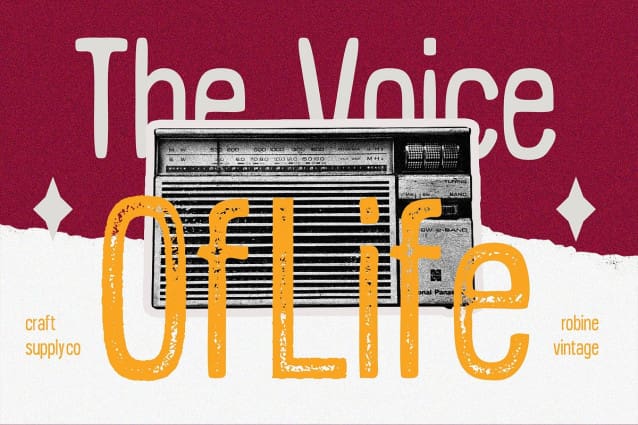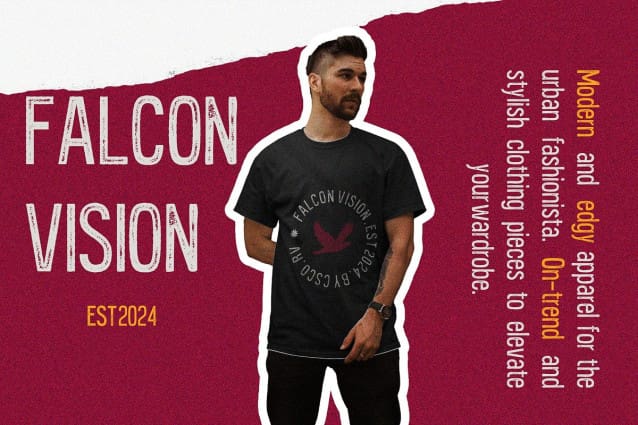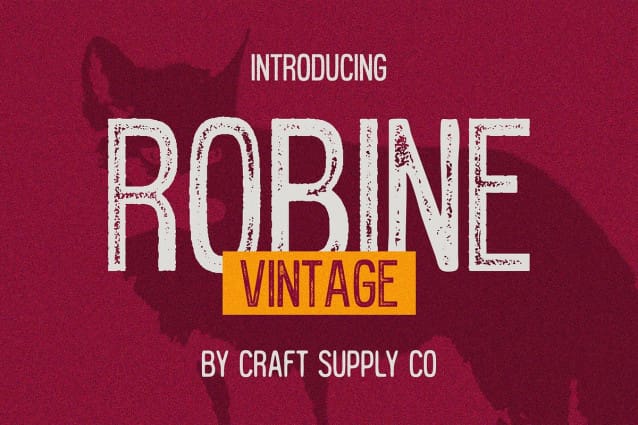
Robine Vintage Font
Robine Vintage Font: Embracing Vintage Vibes. Vintage-Inspired Sans Serif Robine Vintage presents a sans serif display font exuding vintage charm. Its classic yet contemporary design captures the essence of retro aesthetics with a modern twist.
Low Contrast, High Impact With its low-contrast strokes, This font delivers a bold visual impact suitable for various display purposes. Each character is meticulously crafted to command attention without overwhelming.
Rough Stamp Drawn Effect Infused with a rough stamp drawn effect, This font exudes authenticity and character reminiscent of vintage printing techniques. This distinctive texture adds depth and personality to every letterform.
Perfect for Vintage Projects Ideal for vintage-themed projects, This font lends an air of nostalgia and authenticity to branding, packaging, posters, and more. Its unique blend of classic style and contemporary appeal makes it a versatile choice for designers seeking to evoke a bygone era.
Vintage – Timeless Elegance This font is more than just a font; it’s a journey back in time. With its vintage-inspired sans serif design, low-contrast strokes, and rough stamp drawn effect, it brings a sense of nostalgia and authenticity to any project. Whether you’re designing for print or digital, Robine Vintage adds a touch of timeless elegance to your creations.